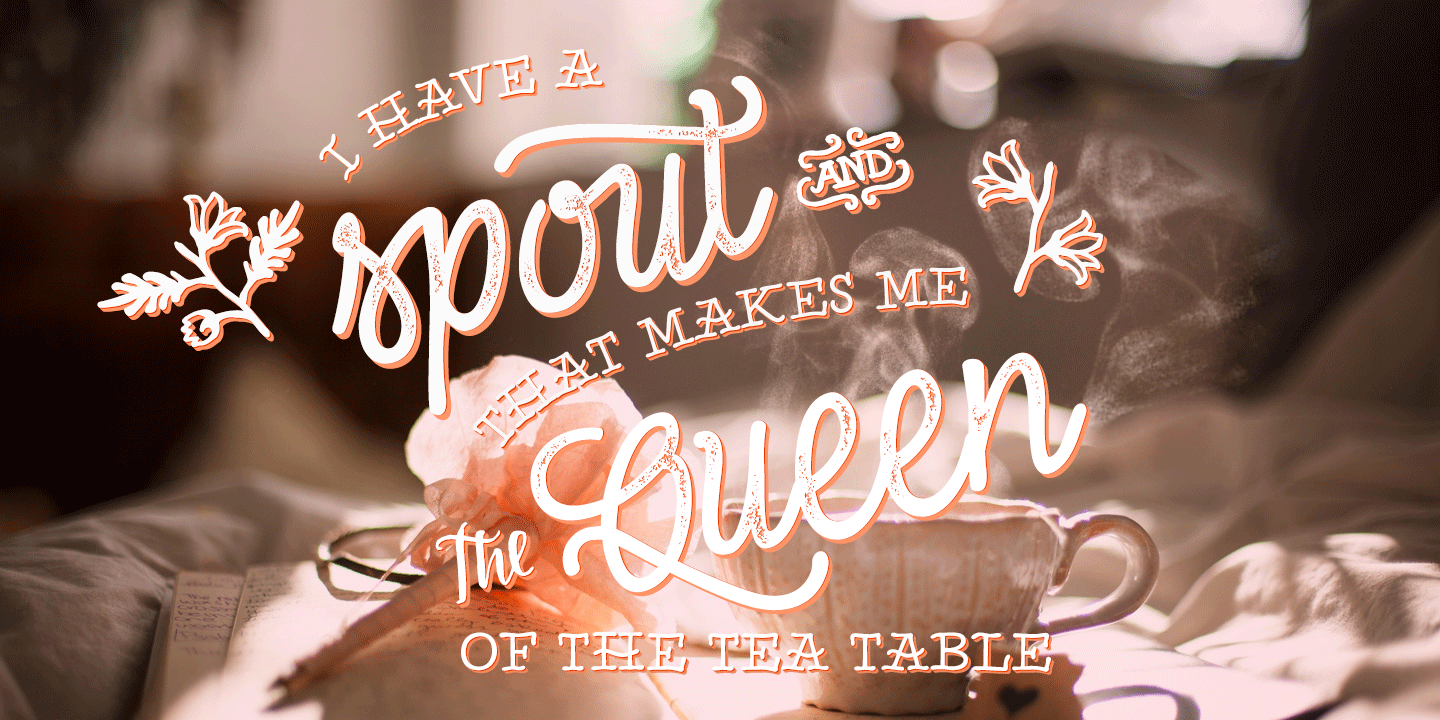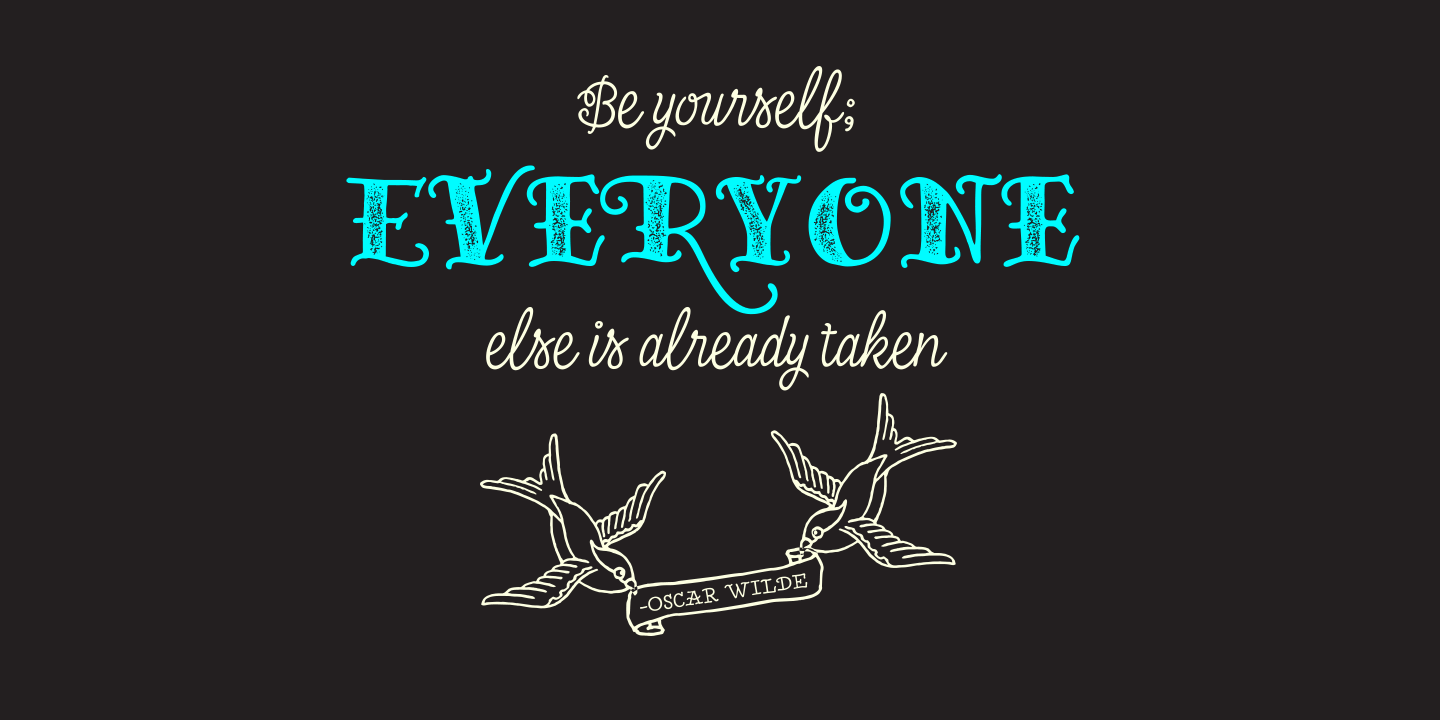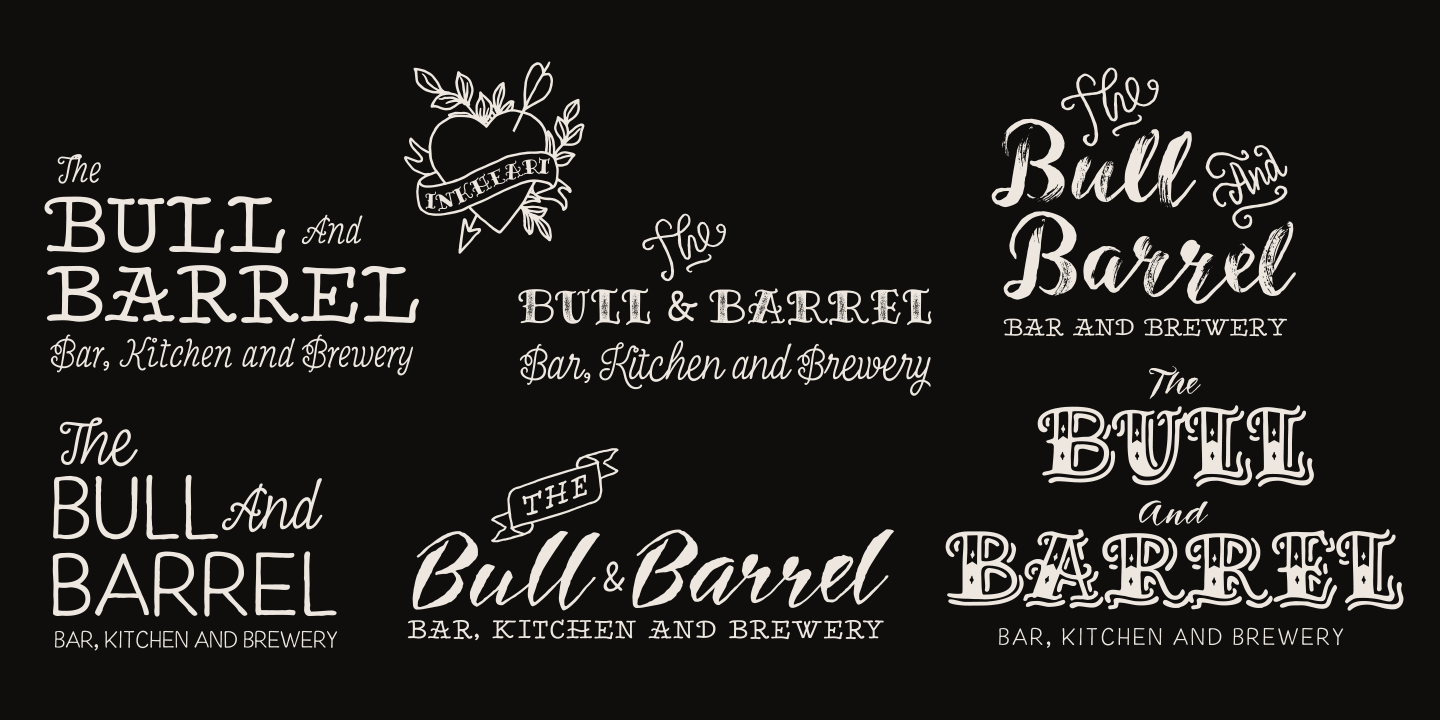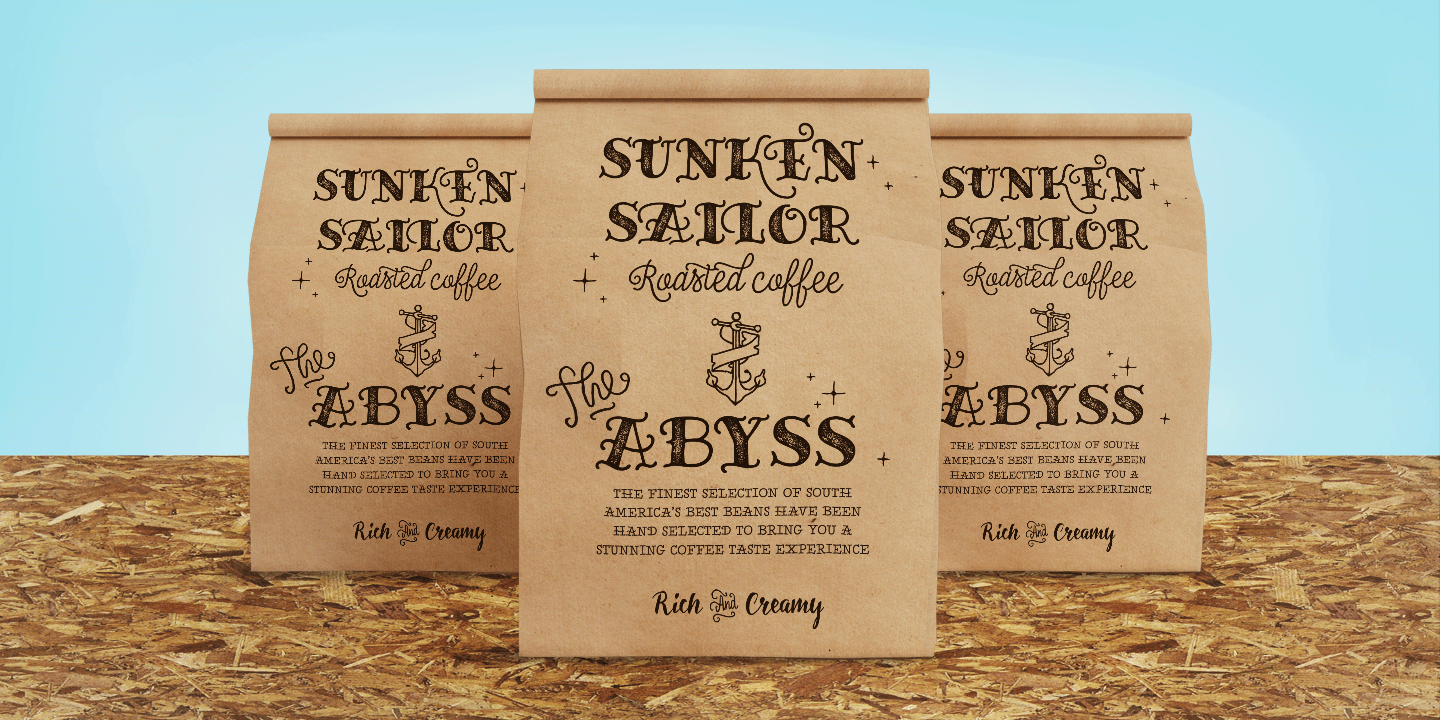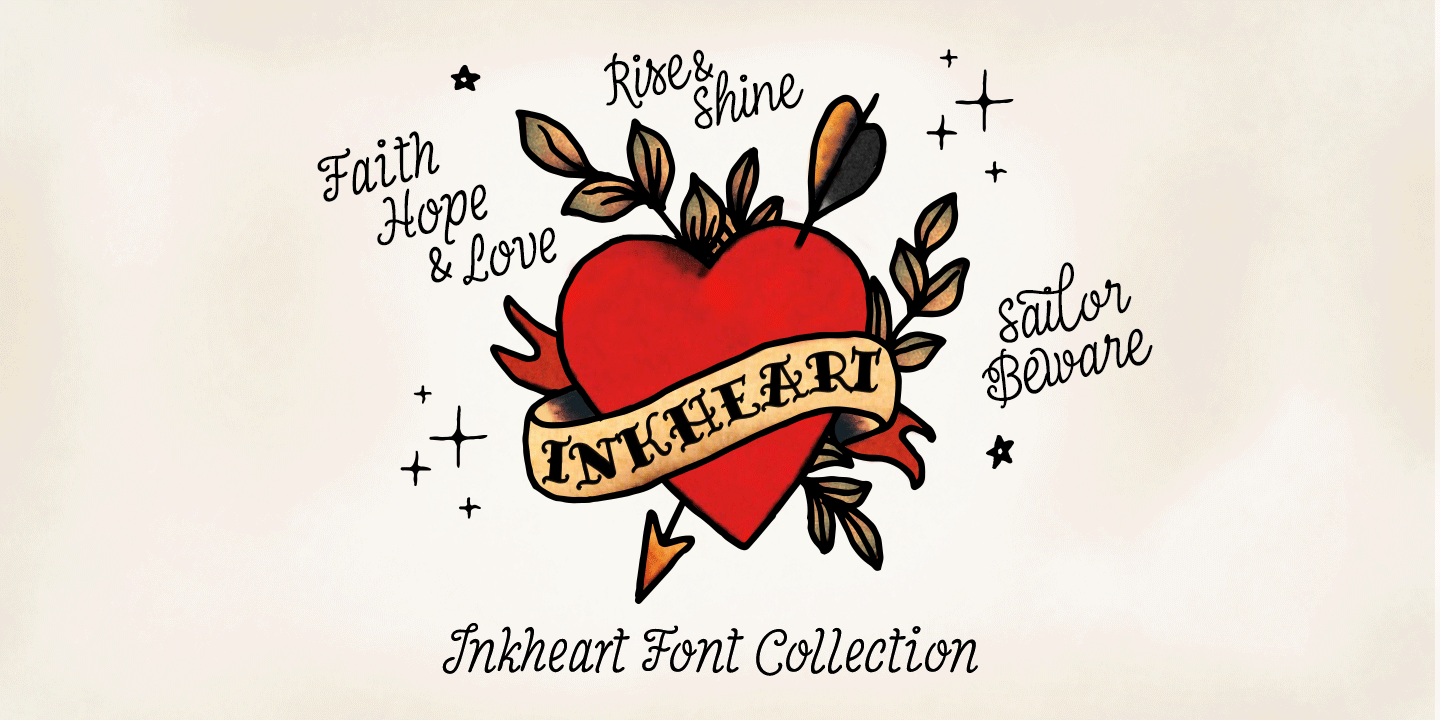
Inkheart is a handmade font family of 22 fonts designed to play together. Inkheart family covers a wide range of different styles such as script, brush, sans and many other display styles – drawn in the same size so they naturally fit together. Inkheart…